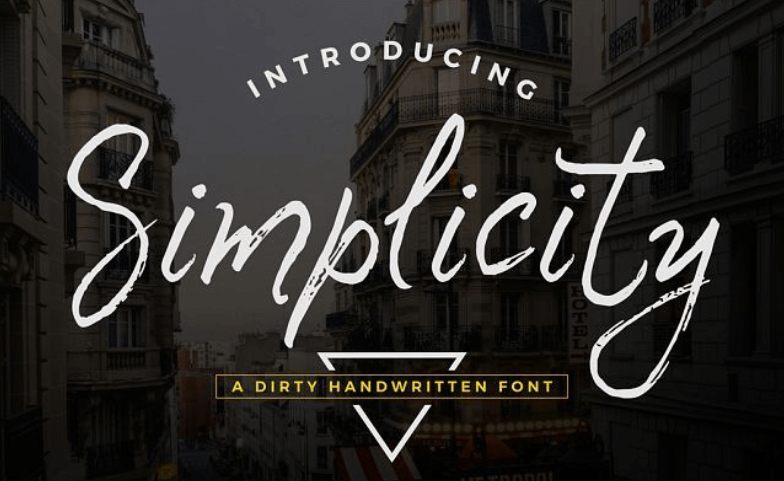
Simplicity script font was designed and first time published with the aid of Anna Ivanir.
Simplicity Script Font
This a brilliant script font. This script font may be excellently used for branding, wedding invitations, logo layout, business playing cards, weblog posts or even posters or postcards or anything comes to your mind.